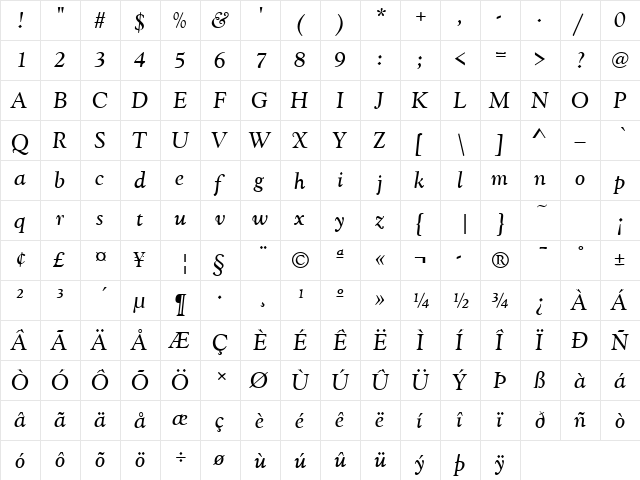
GoudyCatTReg Italic
Design Context for GoudyCatTReg Typeface
GoudyCatTReg offers clean, dependable letterforms without strong stylistic allegiance, making it a practical choice for designers who need flexibility. Its italic angle brings a sense of urgency and motion to the letterforms.
Pro Tip: Try GoudyCatTReg for annotation and caption copy alongside an upright companion — the contrast in angle creates a dynamic but ordered typographic system.